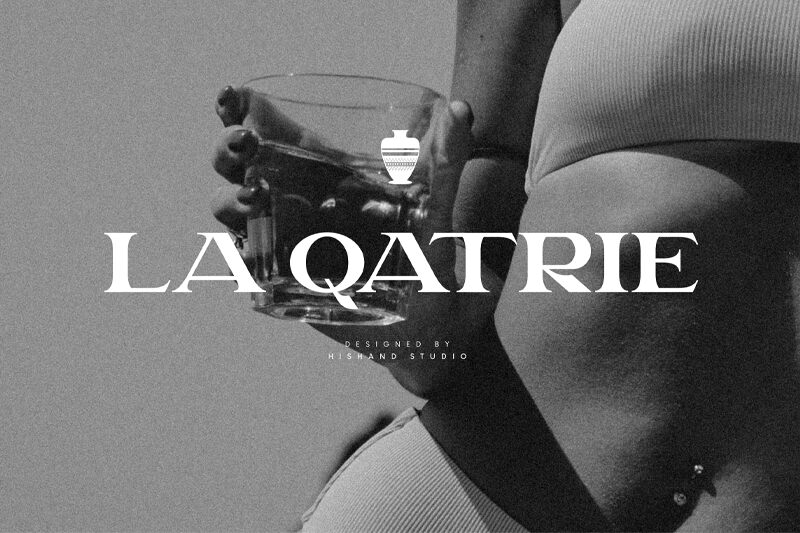
La Qatrie font by Hishand Studio captivates with its elegant serif style and striking expanded width, creating an impressive visual impact. This free font features sophisticated curves and a bold presence, making it ideal for designs seeking to convey luxury and refinement. Its classic yet contemporary aesthetic makes La Qatrie perfect for branding, editorial layouts, or any project that demands a touch of elegance.
Whether you're crafting high-end packaging, designing wedding invitations, or creating impactful headlines, the La Qatrie font offers versatility and grandeur in equal measure.
LA QATRIE